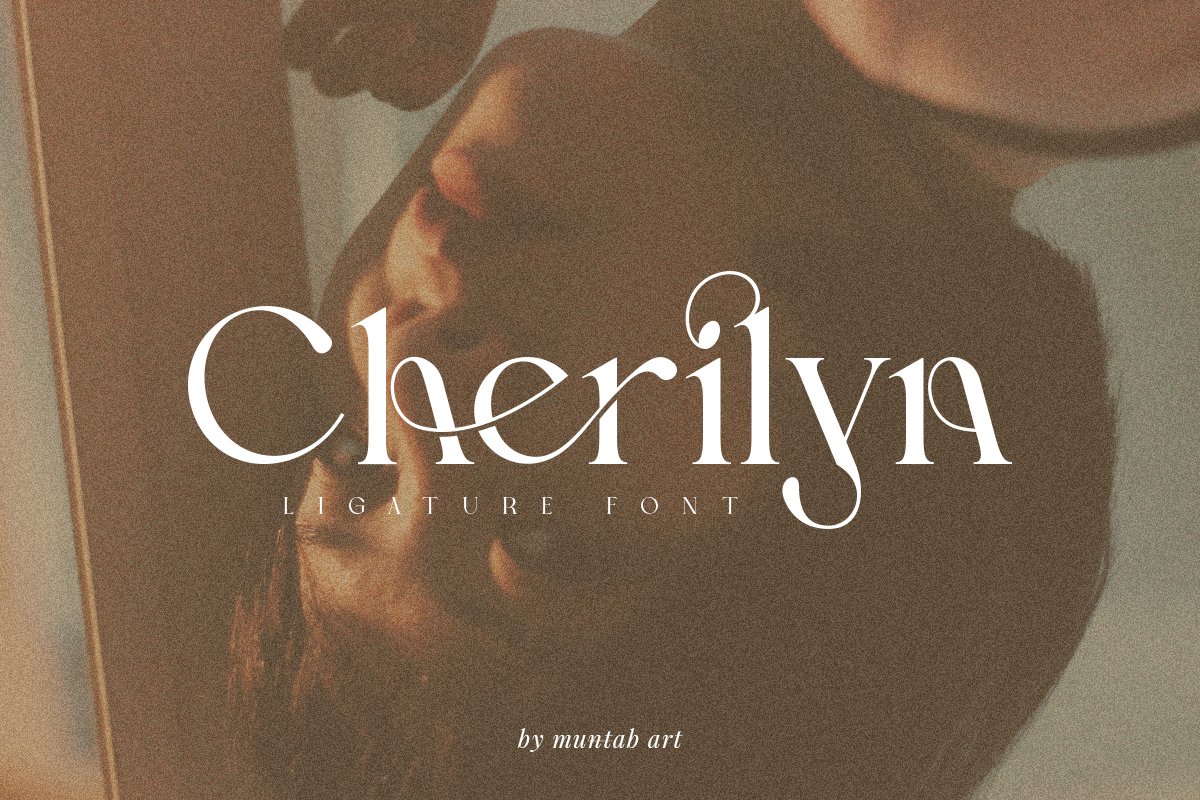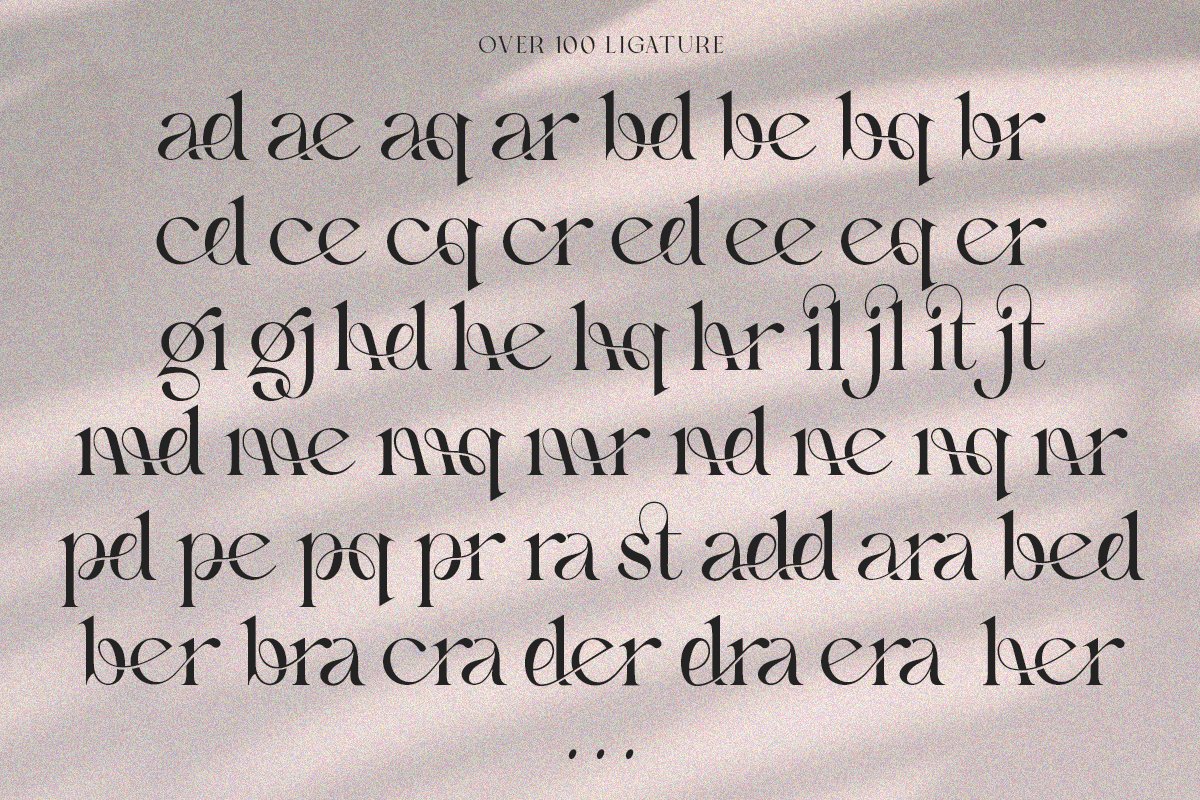
About the Cherilyn | Ligature Font
Cherilyn fonts includes uppercase letters, lowercase letters, numerals, a large range of punctuation, Serif font with modern stylish style include ligatures, Created for poster, web design, branding, illustrations, badges and some other works, Cherilyn OTFCherilyn TTFPlease contact us if you have any question, we are happy to help you!Thank you!